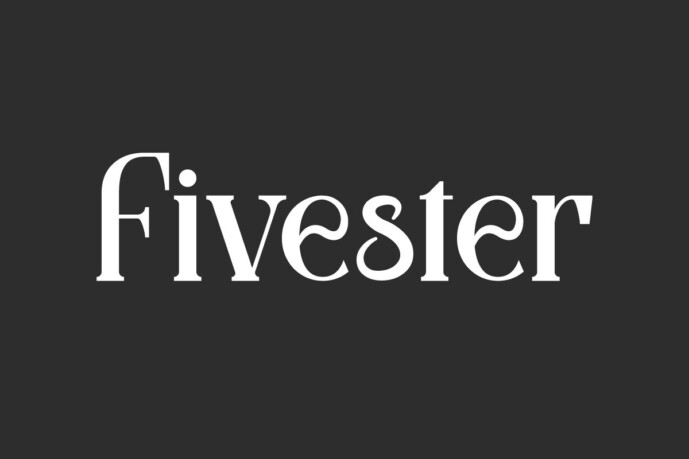
Fivester Font
Fivester Font is a stunning, elegant serif display font with mysterious vibes. This font can give a luxurious impression and can be paired with various types of fonts to give the best appearance.
It will suit many designs, such as brochure, custom design, gift box, invitation, label, product packaging, quote, screen printing, signage, stationery, website, and more!